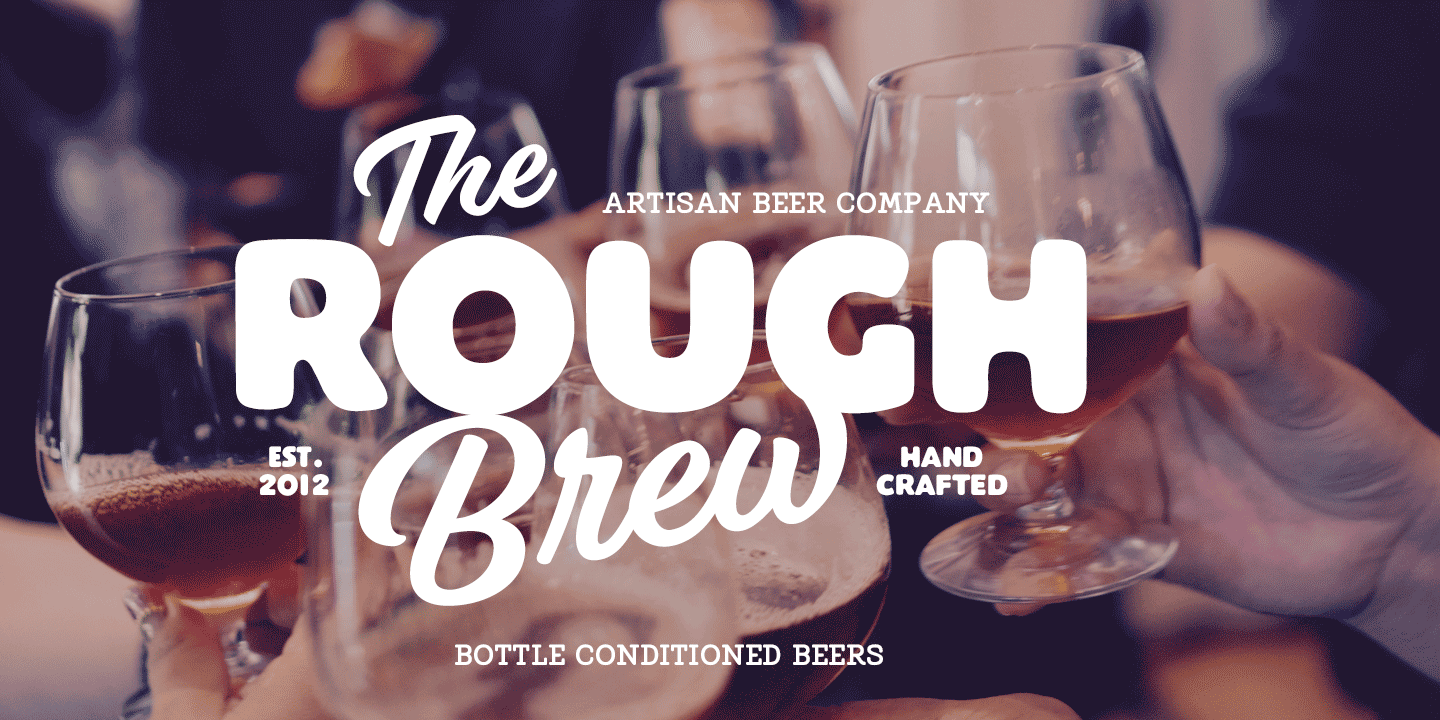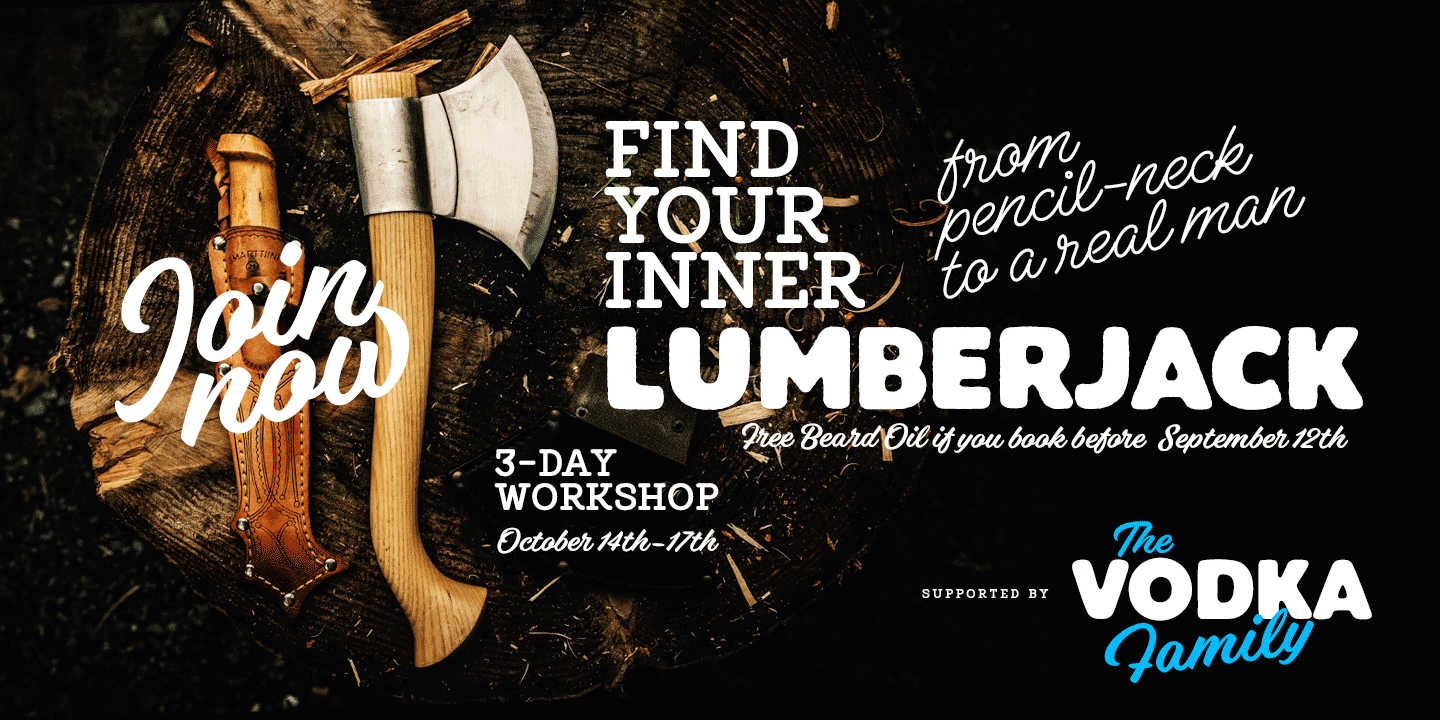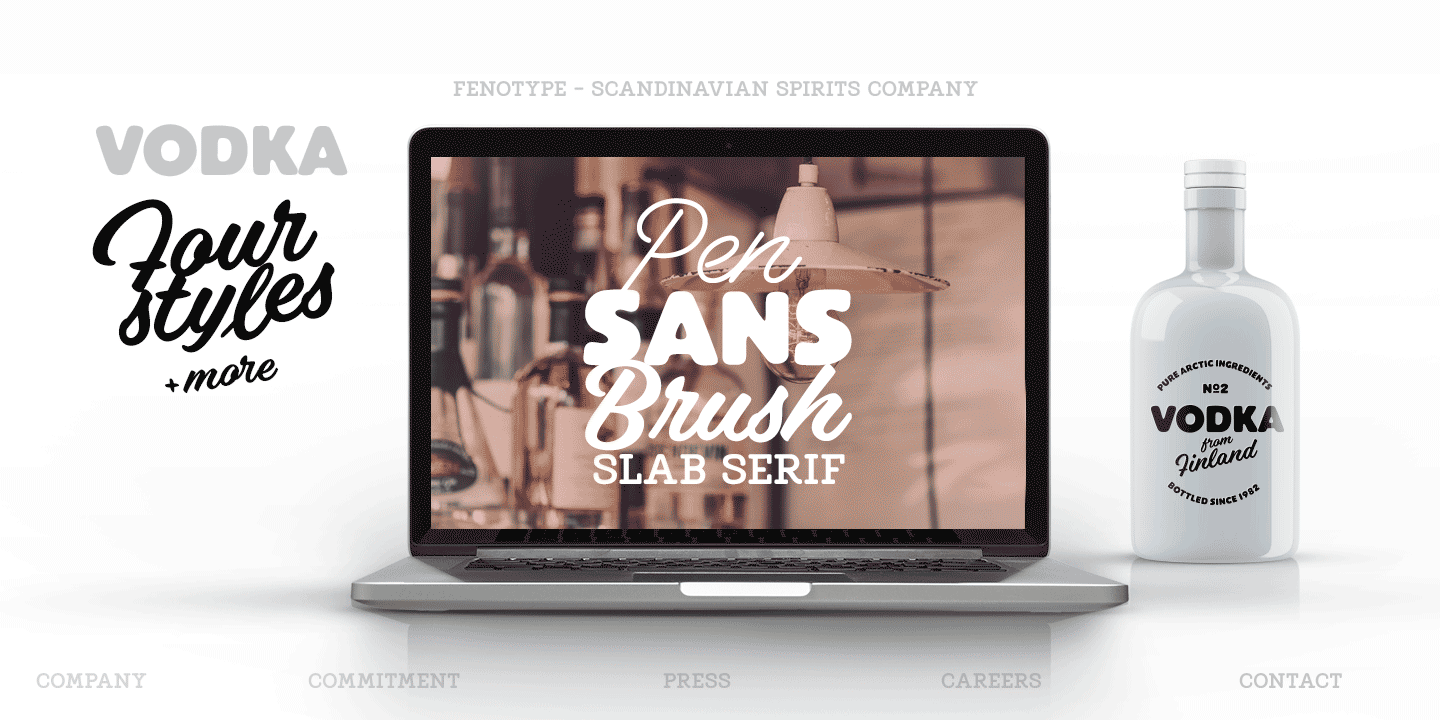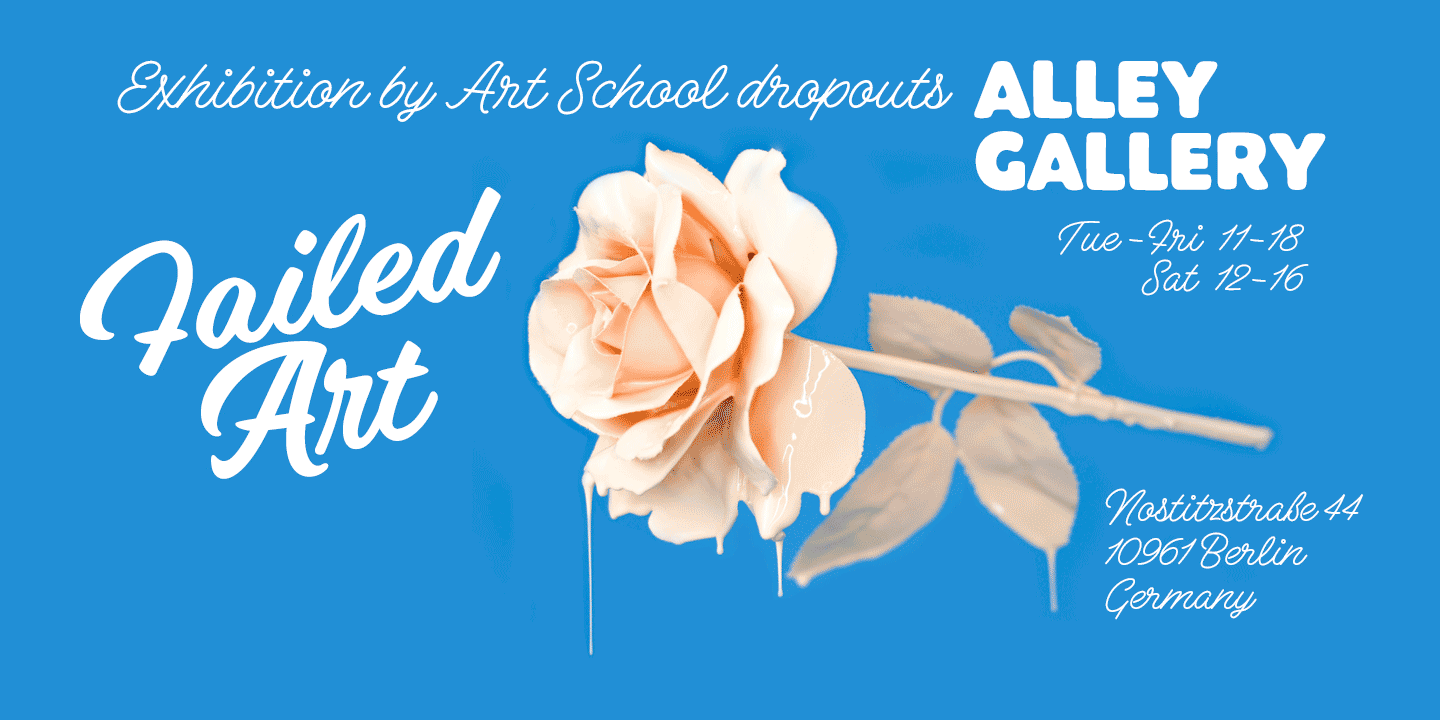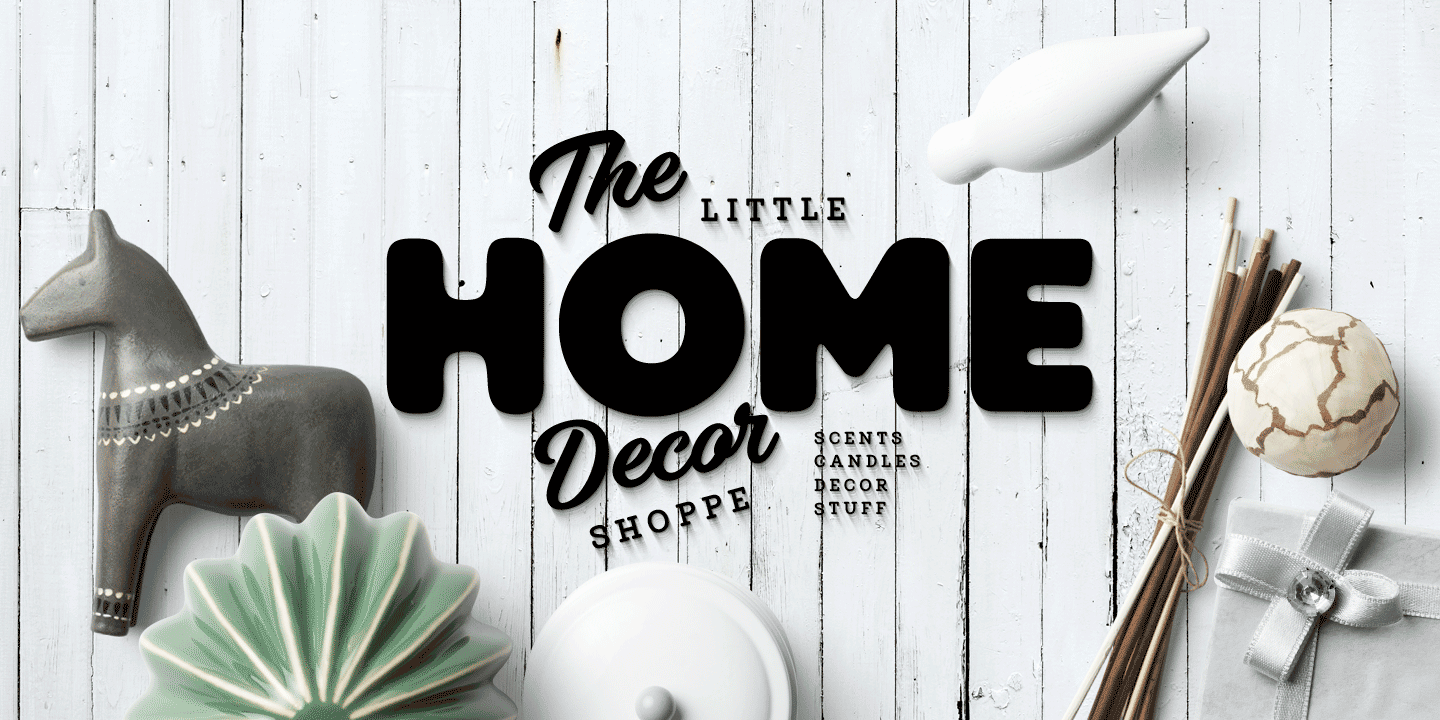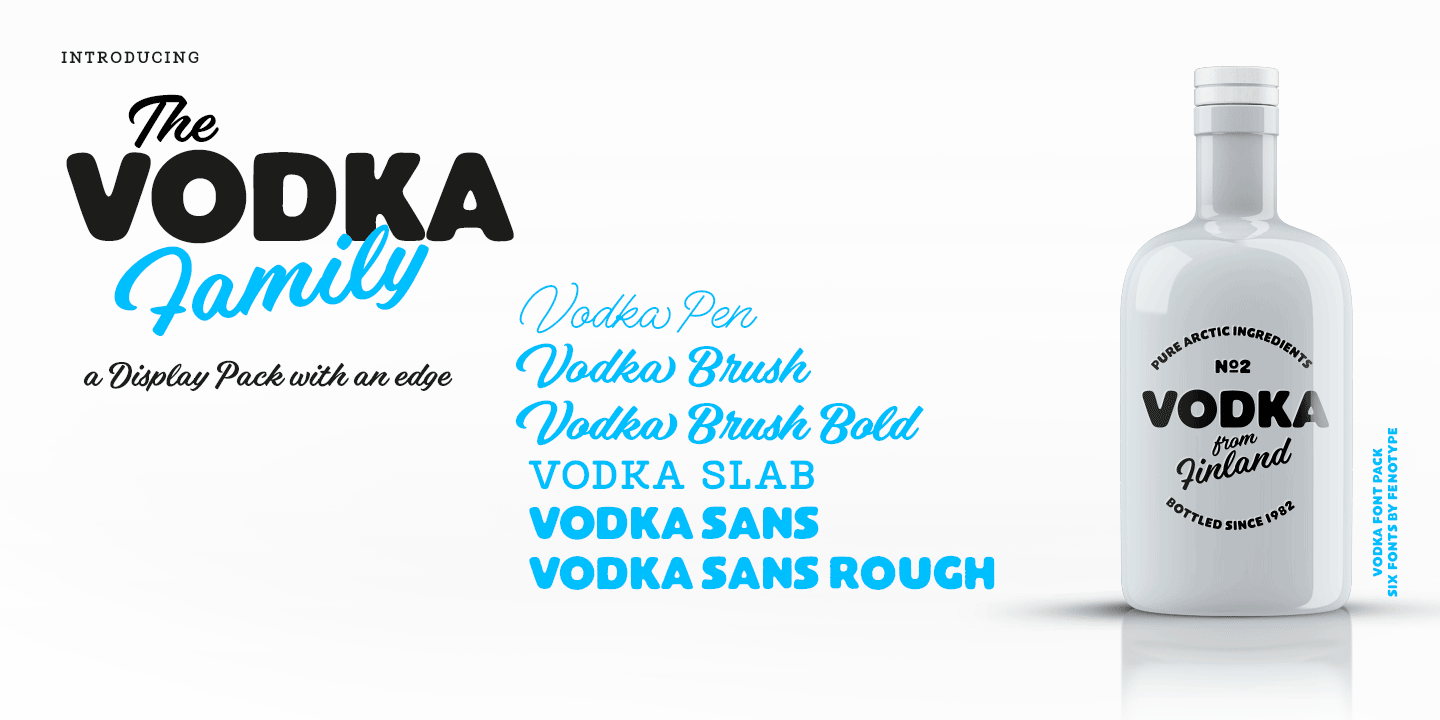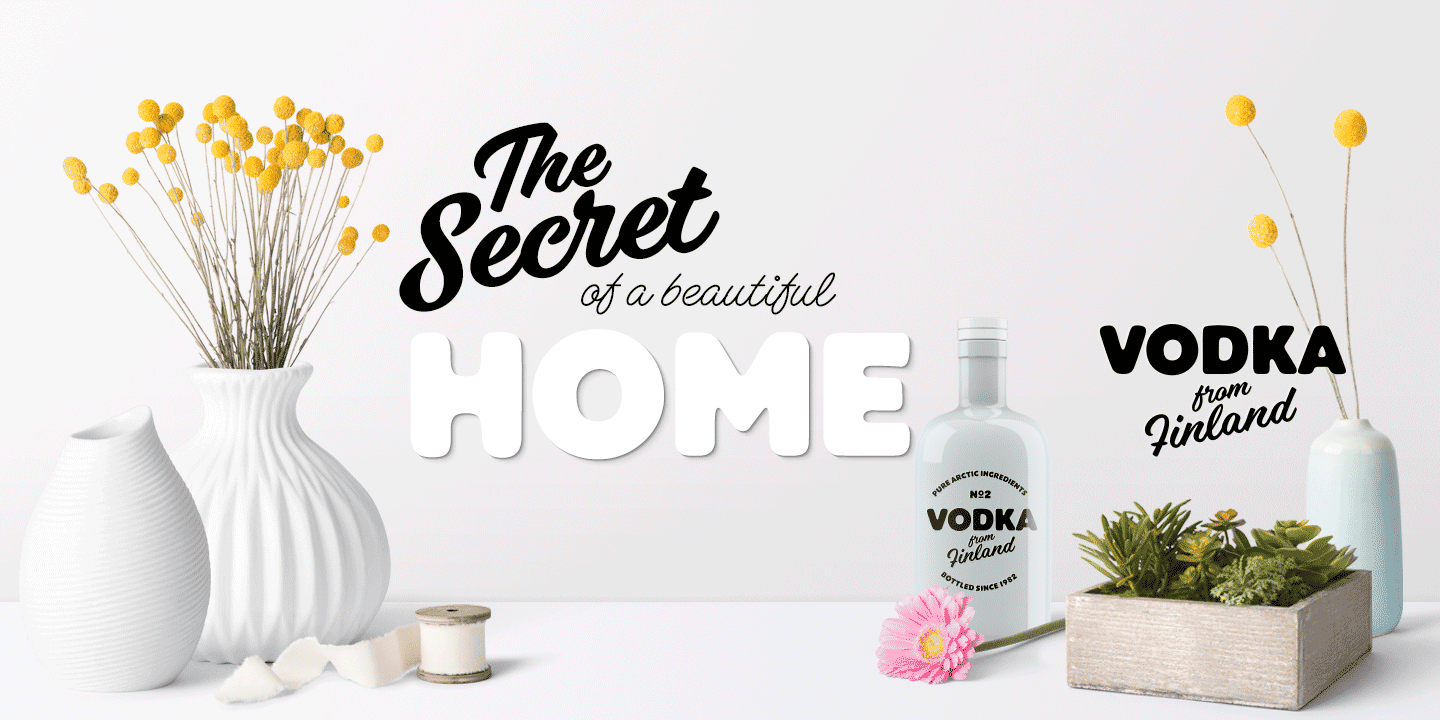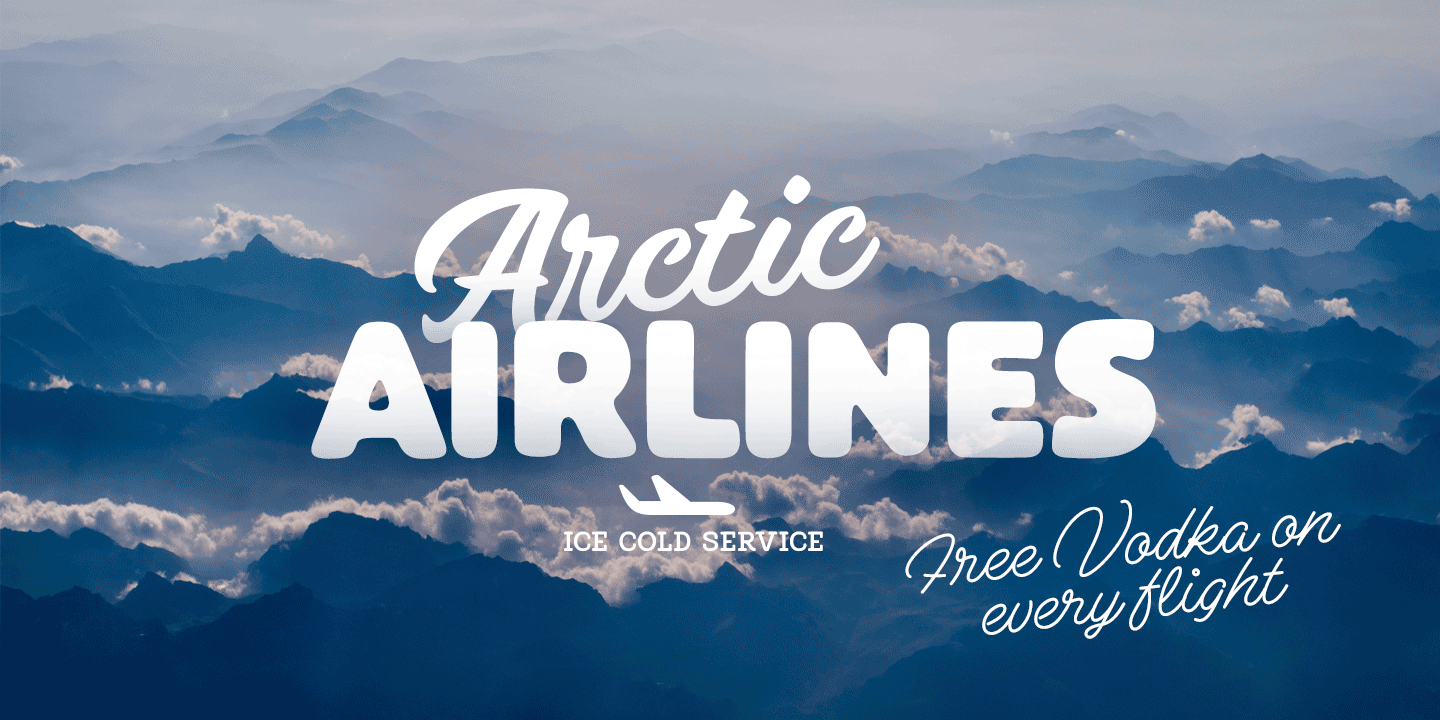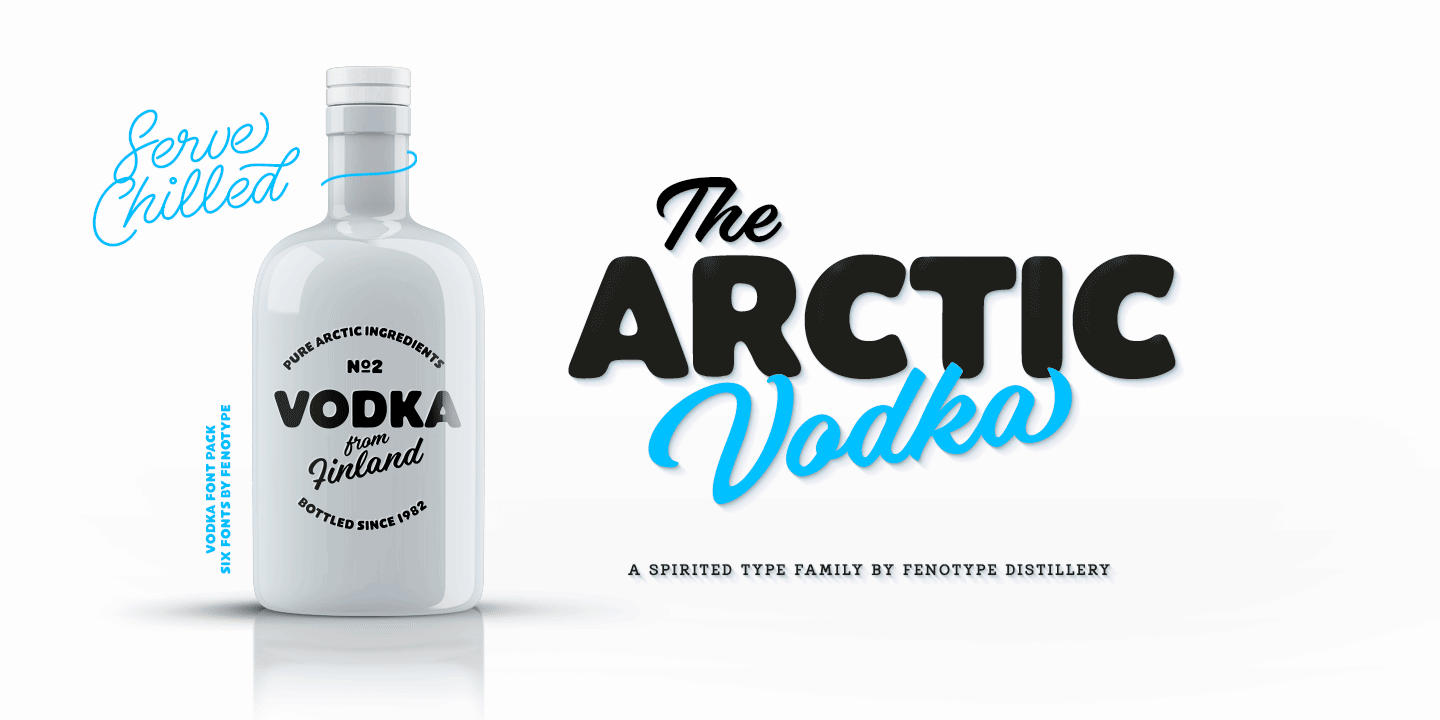
Vodka
About Vodka
Vodka is a display combo pack of four styles and six fonts. Vodka fonts are clean but soft. Vodkas core is two weights of a Brush Script and a Monoline Script with similar characters. Vodka Sans is a bold sans with very soft features. Vodka Sans lowercase…